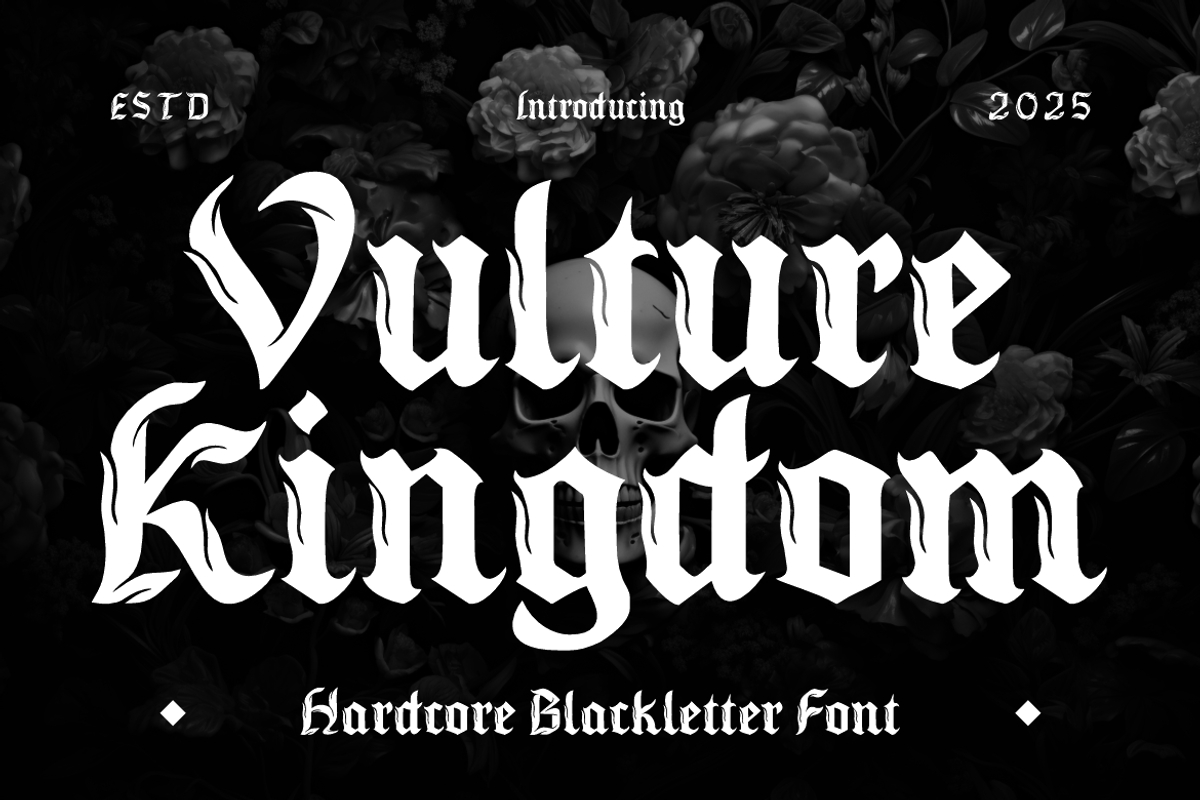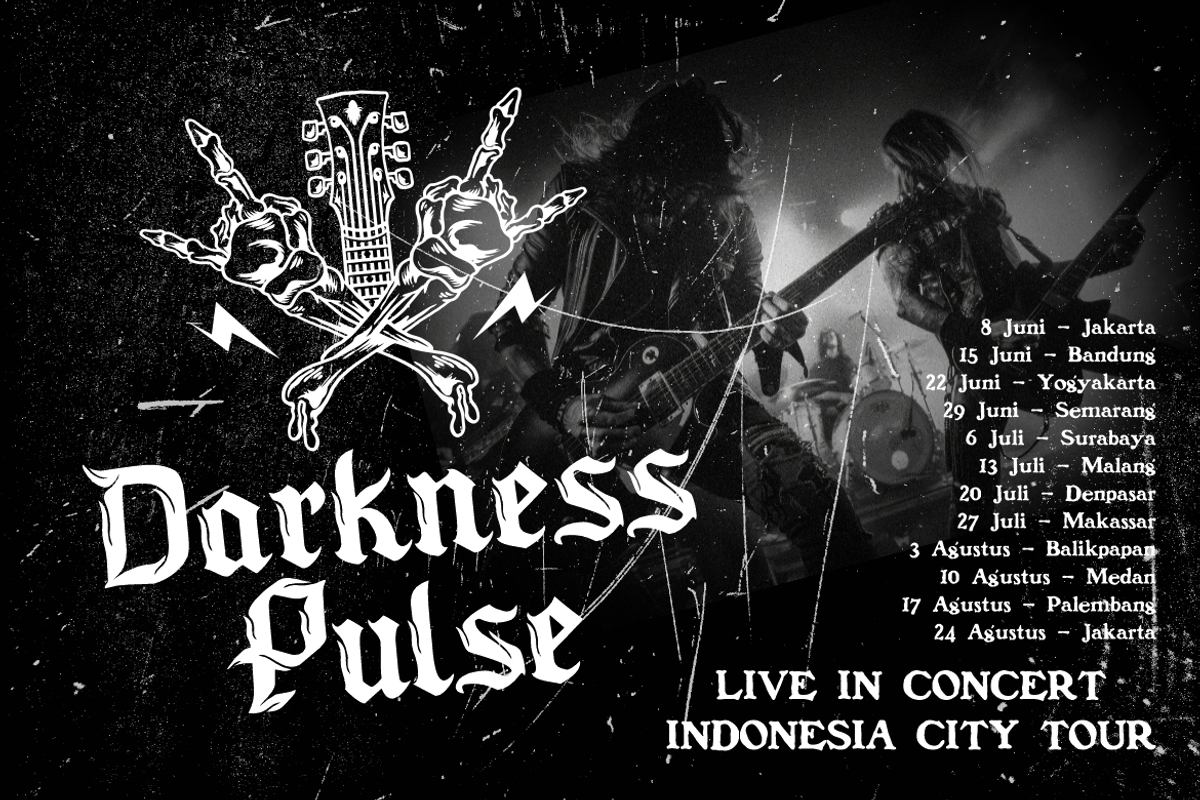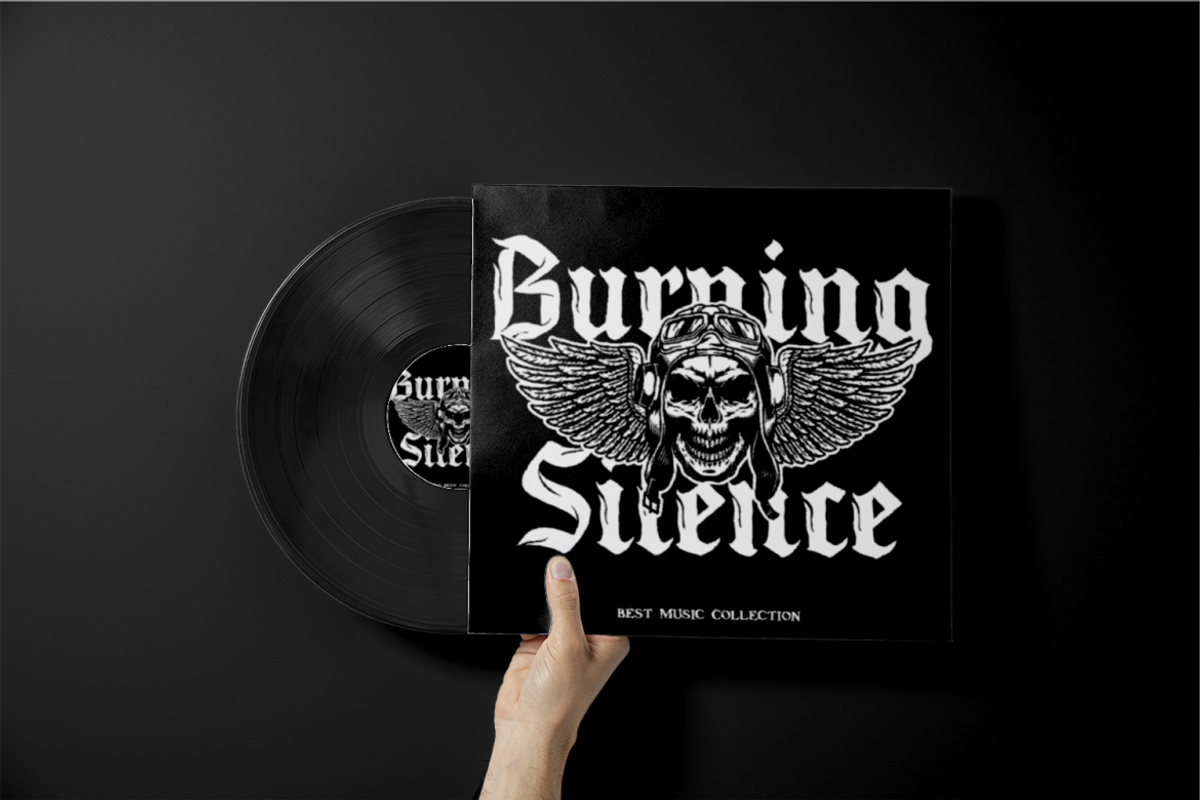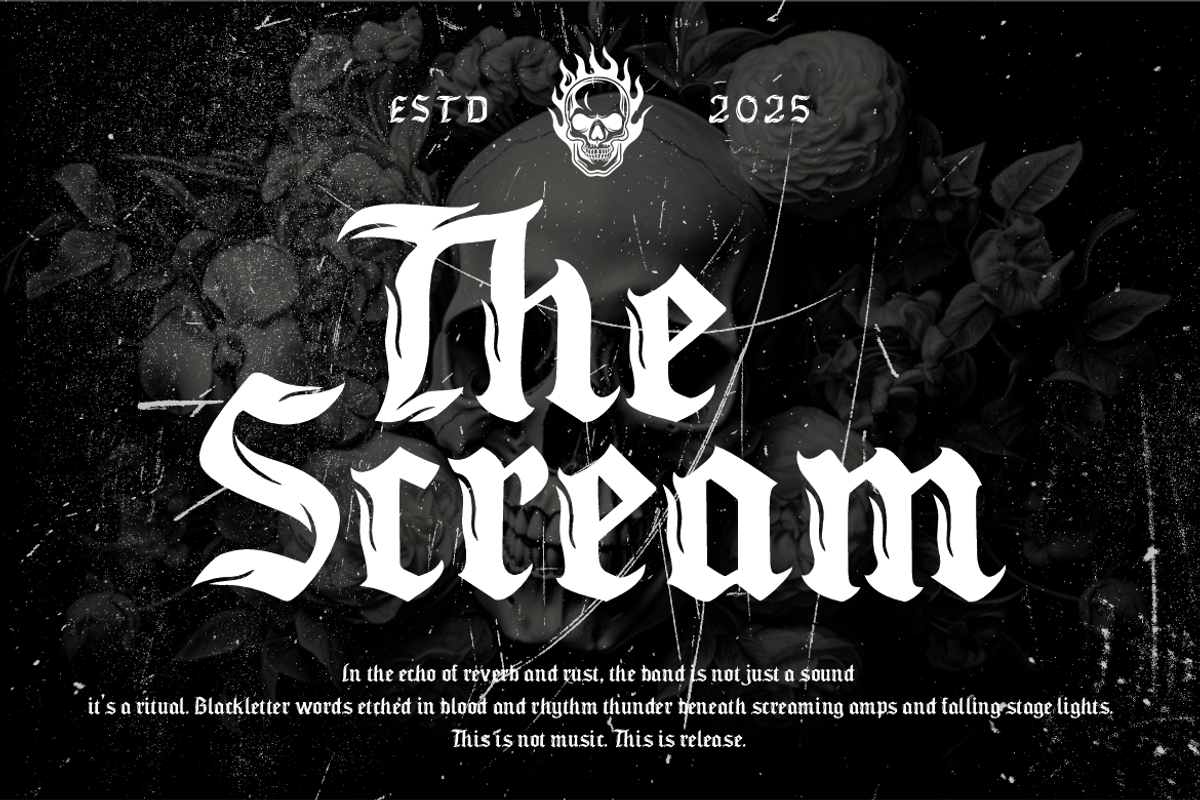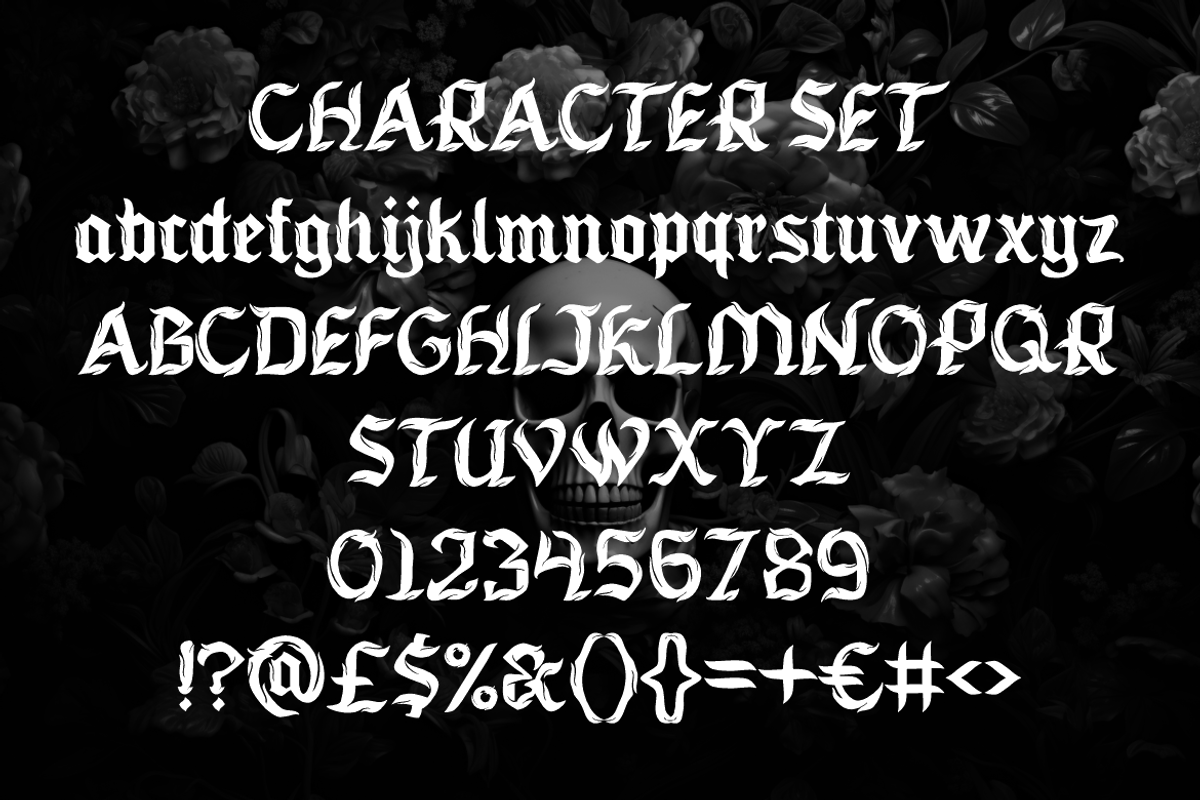
Vulture Kingdom Hardcore Blackletter
Vulture Kingdom is a hardcore blackletter font forged in fire and rebellion. With razor-sharp curves, medieval authority, and bold gothic presence, this font dominates any layout. Each character is sculpted with aggressive edges and flame-inspired details, making it ideal for metal bands, underground zines, streetwear branding, and occult-themed packaging.
Designed for impact, Vulture Kingdom thrives on contrast—its heavy strokes and intricate spurs command instant attention. Whether used on album covers, horror movie titles, event posters, or tattoo-style artwork, this font elevates the message with ferocity. It includes full uppercase, lowercase, numbers, and essential punctuation. Amplify your design presence with a font that screams dominance and destruction in one breath.